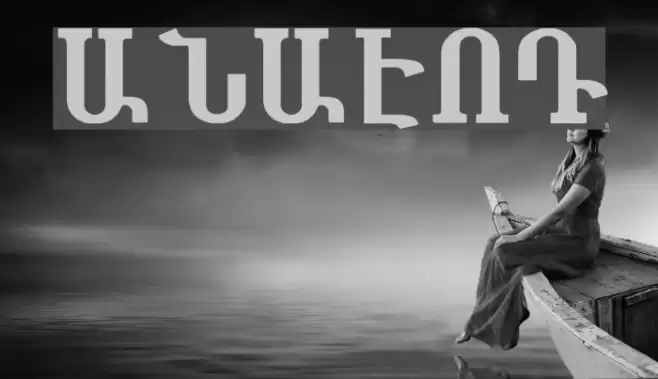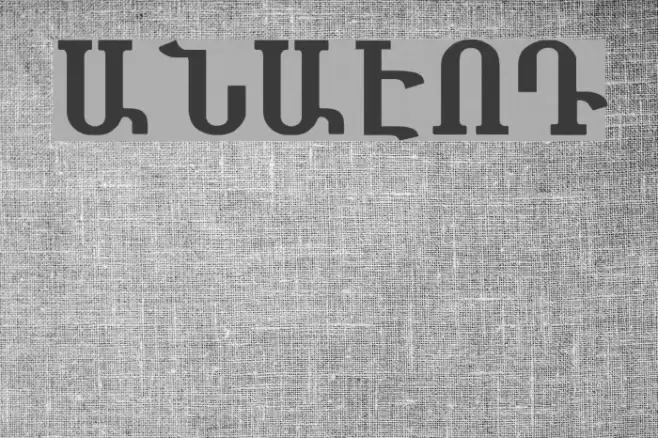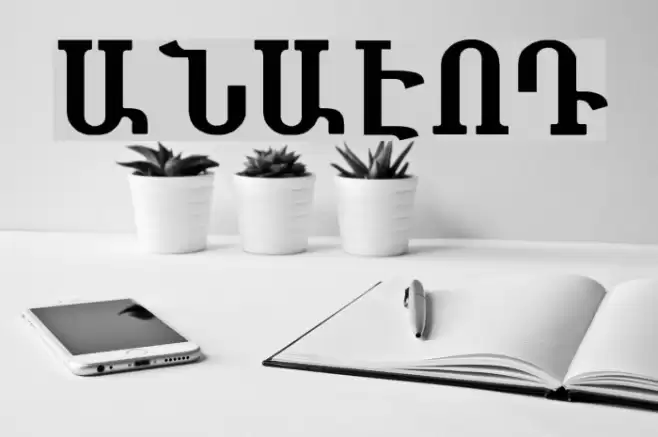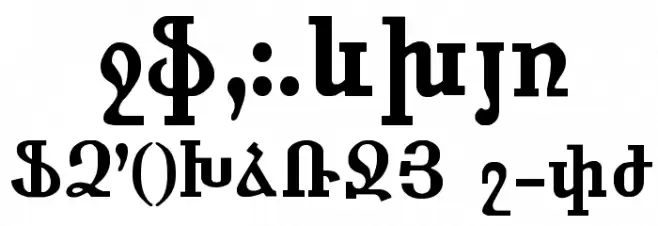
ANAHID Font
ANAHID Description
This font features a bold and distinctive style with strong, angular serifs and a robust presence. The characters are well-defined and exhibit a high contrast between thick and thin strokes, giving it a dramatic and impactful appearance. The overall design is reminiscent of traditional serif fonts but with a modern twist, making it suitable for both classic and contemporary applications. The spacing between characters is normal, ensuring readability while maintaining its bold aesthetic. This font is versatile, capable of being used in various design contexts where a strong visual impact is desired.
A bold, high-contrast serif font with strong, angular serifs and a modern twist from Uncategorized fonts.
- Proposed Projects: Ideal for headlines, branding, posters, and any project requiring a strong visual impact.